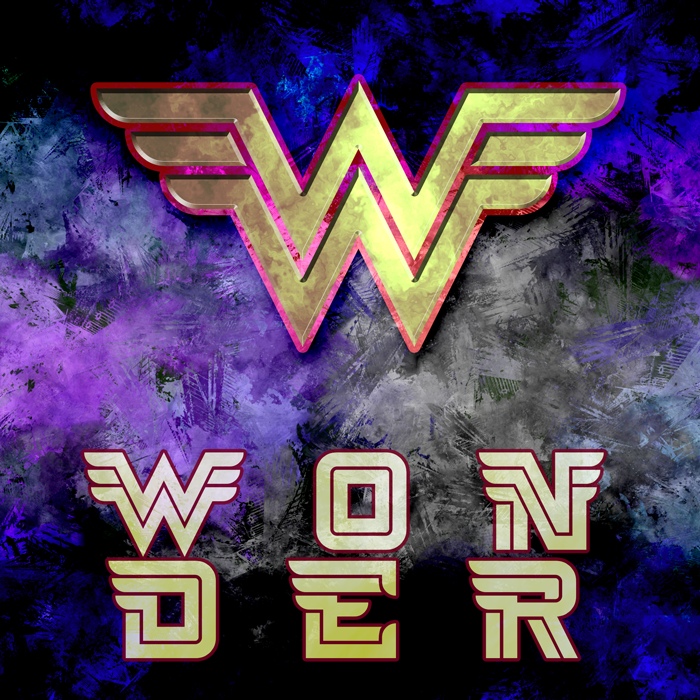
• Themysciran. Home of Amazonian Princess Diana, aka Wonder Woman. Of course it’s the opening day of the movie about her origin story. Gal Gadot makes the worthiest successor to the TV version with Lynda Carter since 1979. This font is based off of the Wonder Woman logo from DC Comics.
So nice, it has a definite feel of speed with solidity. I love the X and Y.
Digits?
Excellent winged inline!
very cool,  the declination from the logo is very good, great work again
Very creative; I like it! =)
It has an Assyrian feel, "winged (or swift) power". As an avid ancient history buff, I knew the category of this font, historically, immediately!
Not sure what the name you gave it means. But you could have called it Assyria, Assyrian, Nineveh, Zoreaster, or some similar name, and it might be better remembered (perhaps)! But I like the 'Power Flight' feel of it (that's not a bad name for it either)!
Great font!
yeah this one is too cool, gene